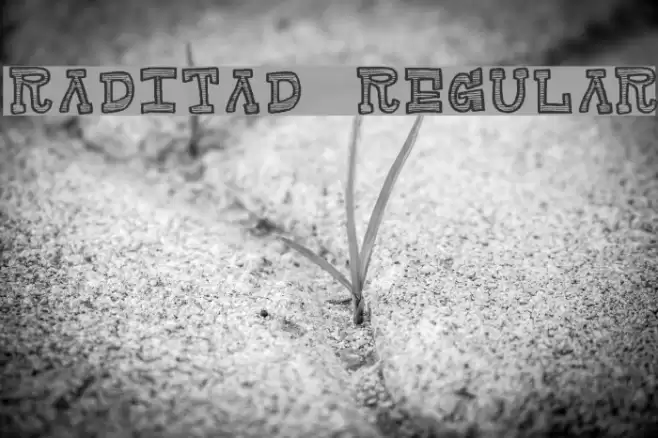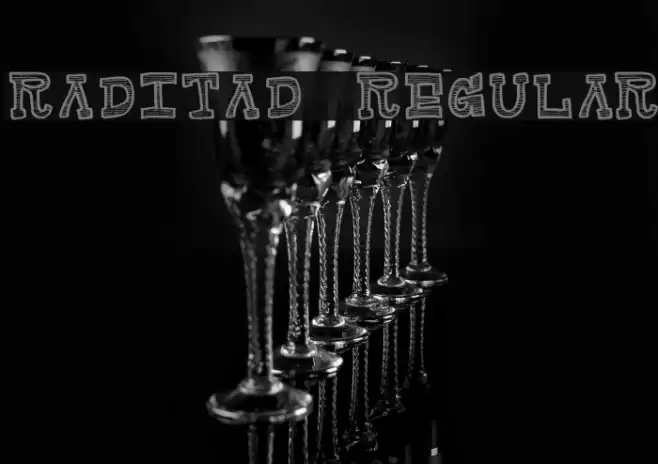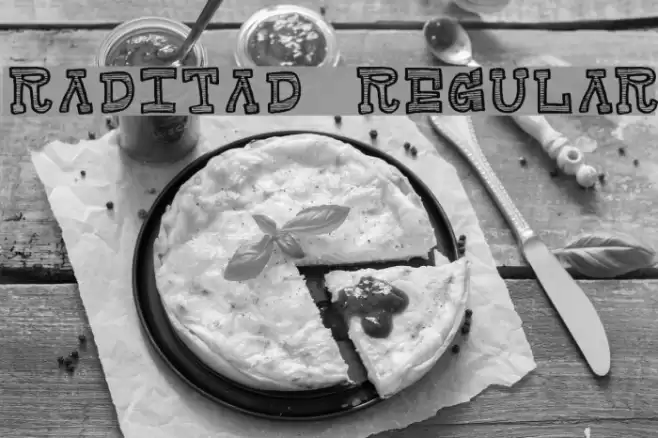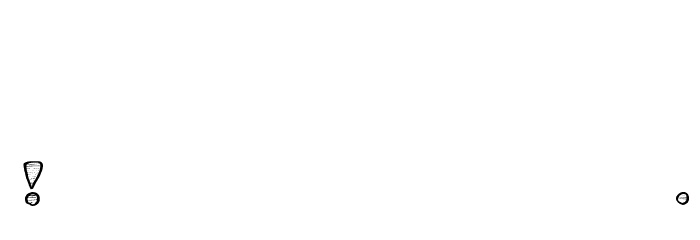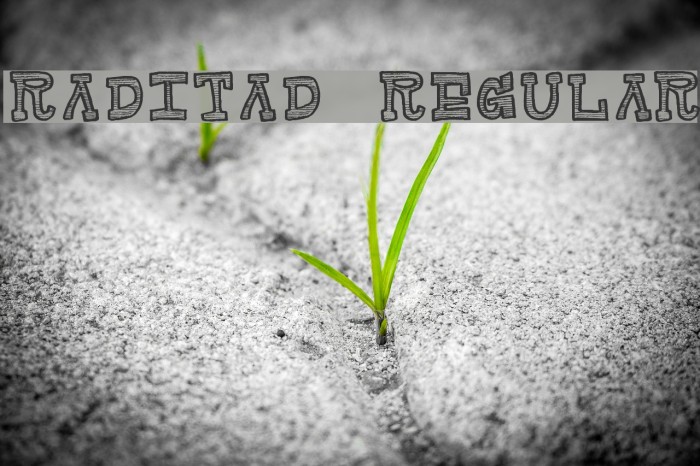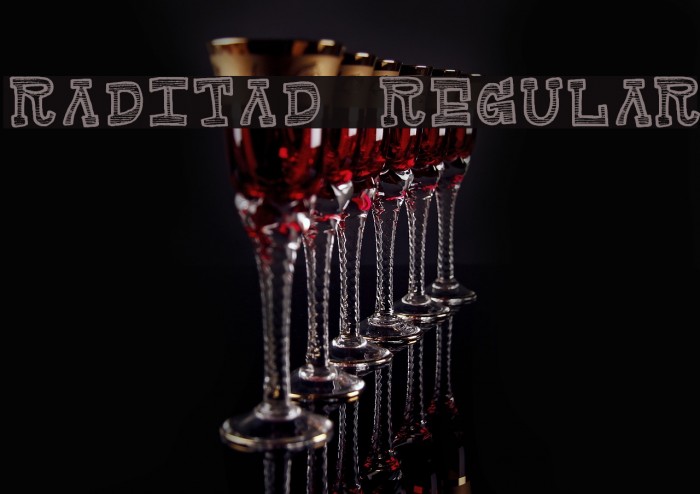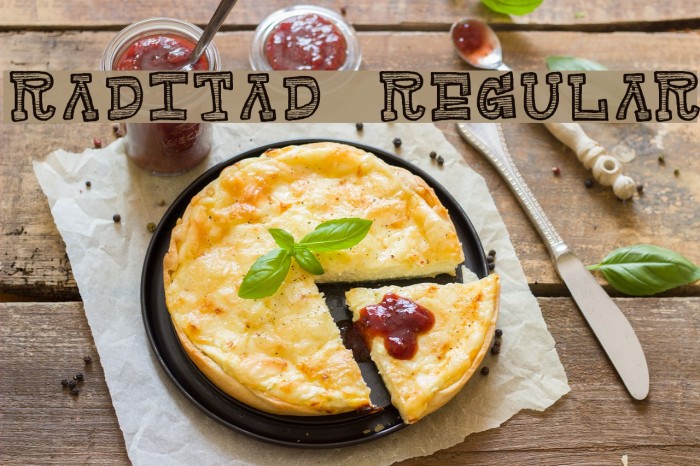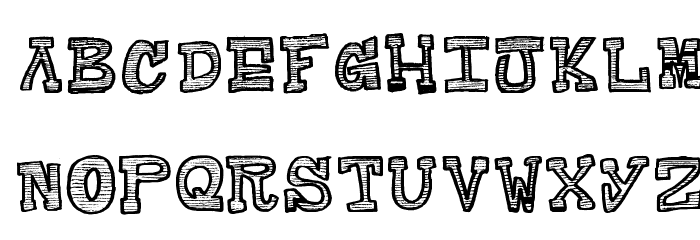
Raditad-Regular Font
Raditad-Regular Description
This font features a playful, hand-drawn style with a bold and chunky appearance. Each character is outlined with a rough, sketch-like texture, giving it a unique, artistic feel. The letters are slightly irregular, adding to the whimsical and informal aesthetic. This font is perfect for projects that require a fun and creative touch, such as children's books, comic strips, or playful branding. The uppercase letters are prominent, with a consistent height and width, while the lowercase letters maintain the same quirky design. The font includes basic punctuation, enhancing its versatility for various design needs.
A playful, hand-drawn font with a bold, sketch-like texture from Cartoon fonts.
- Proposed Projects: Ideal for children's books, comic strips, playful branding, and creative posters.
- Overall Style: Whimsical, Artistic